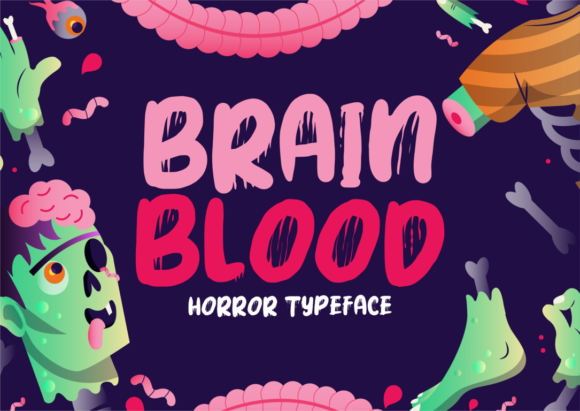
Dive into the eerie world of Blood Brain Font, where horror meets creativity! This wickedly charming display font is the perfect spell to cast upon your Halloween-themed designs. With its eerie charm and spine-tingling appeal, Blood Brain Font will make your creations scream with delight.
Conjured by the masters of darkness, loklike, Blood Brain Font is the ultimate choice for unleashing your inner ghoul. Its hauntingly beautiful glyphs dance across your screen, casting a spell that will captivate all who dare to gaze upon them.
But beware, dear mortals, for Blood Brain Font is not for the faint of heart. Its devilish curves and menacing edges are a testament to its otherworldly origins. This font is the perfect elixir for conjuring up spine-chilling flyers, bone-rattling posters, and spellbinding invitations.
Let your imagination run wild as you unleash the power of Blood Brain Font. Whether you're crafting spine-tingling stories, designing hair-raising costumes, or brewing up a batch of Halloween potions, this font will add a touch of monstrous magic to all your creations.
So, brave adventurers, heed our call and embrace the darkness within. Download Blood Brain Font today and let your designs haunt the world with their eerie charm. The only limit is your imagination, and with Blood Brain Font by your side, your Halloween creations will be the talk of the town... or should we say, the graveyard!